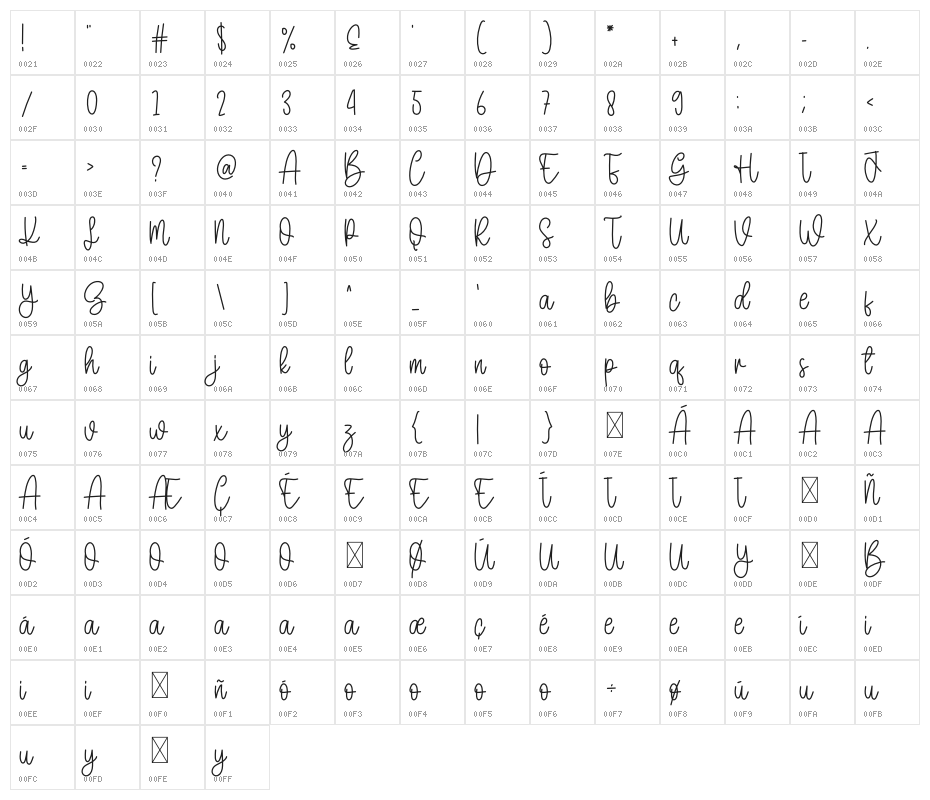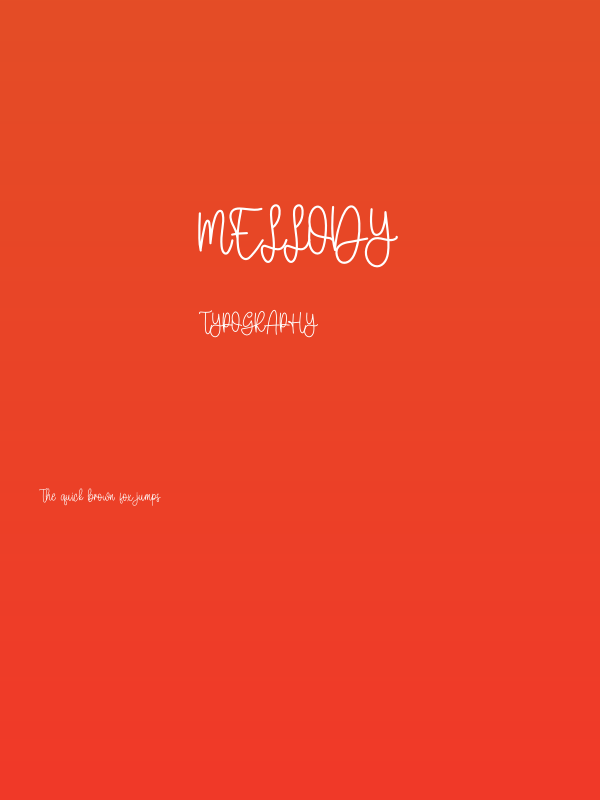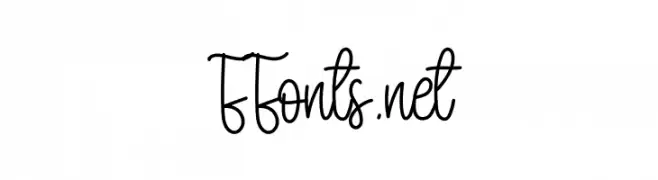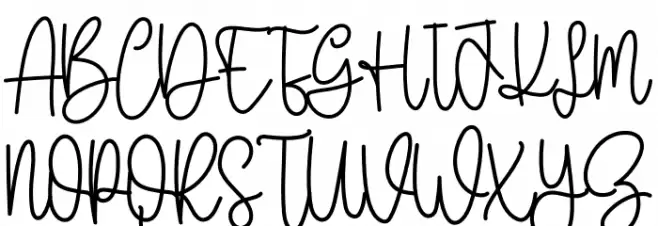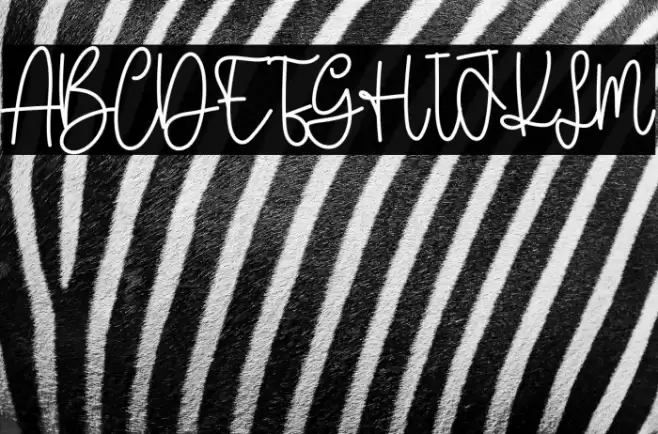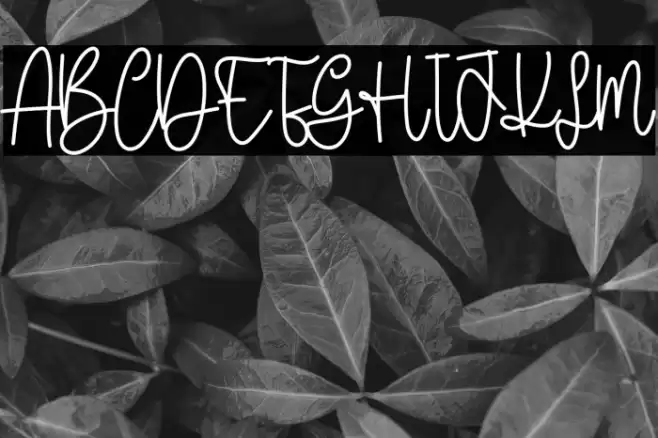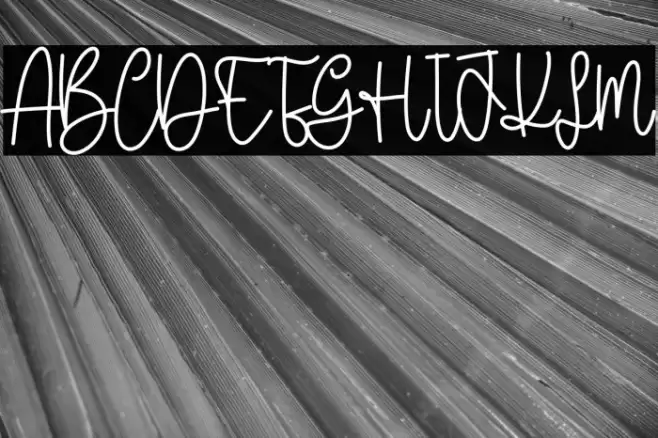
Mellody Font
Mellody Description
A handwritten, casual script font with a playful and informal style, featuring thin, slightly irregular strokes that mimic natural handwriting.
| Overall Style | Casual, Playful, Friendly |
| Use Case | Invitations, Greeting Cards, Personal Branding, Children's Products |